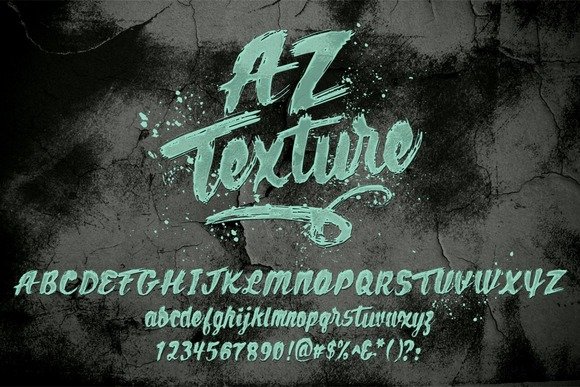
Adding a Touch of Personality to Your Designs
Have you ever been brainstorming a new project, flipping through design inspiration boards, and suddenly, a specific font catches your eye? For many designers, this moment is like a spark that sets the entire creative process ablaze. It happened to me when I stumbled upon AZ Texture Font, a beautiful, brushed handwritten script font that instantly transported me to a world of vintage charm.
Designed to evoke a sense of nostalgia and warmth, AZ Texture Font is a versatile font that’s perfect for a wide range of applications, from branding and advertising to editorial and digital content. Its unique texture and organic feel make it a valuable asset for designers looking to add a personal touch to their work.
Whether you’re looking to create a captivating headline, a set of engaging social media graphics, or a visually stunning website, AZ Texture Font is sure to bring your designs to life.
AZ Texture Font Key Features
- Unique Character Shapes: Features unique and customizable character shapes, allowing for creative and visually appealing text rendering.
Designer Review: AZ Texture Font
Overall, I’m quite pleased with the AZ Texture Font. It has a unique, modern aesthetic that can add a lot of visual interest to digital designs. Here are some things that work well:
- ✨ The font’s texture gives it a tactile, organic feel that’s perfect for designs that need a touch of humanity.
- ✨ The font is highly customizable, with a wide range of options for color, size, and texture.
- ✨ It’s incredibly versatile and can be used for a wide range of design applications, from branding to advertising.
- ⚠️ The font can be quite busy and overwhelming if used in large quantities, so it’s best to use it sparingly.
- ⚠️ The texture can be difficult to read in small sizes, so it’s best to use it in larger sizes or with clear headings.
- ⚠️ The font may not be suitable for designs that require a lot of fine typography, such as academic or technical writing.
Overall, I think the AZ Texture Font is a great addition to any designer’s toolkit. With a little creativity and restraint, it can add a lot of visual interest and personality to designs.
AZ Texture Font is commonly used in:
- Video game design and development.
- Graphic design and branding.
- UI and UX design.